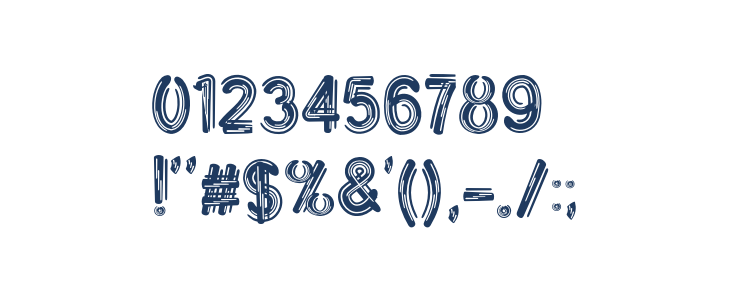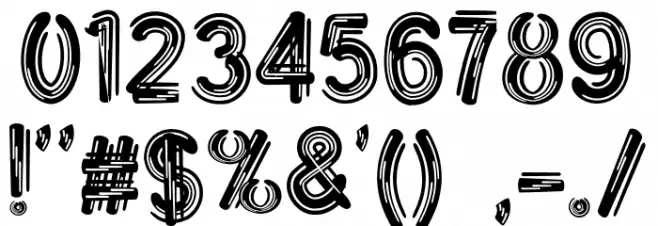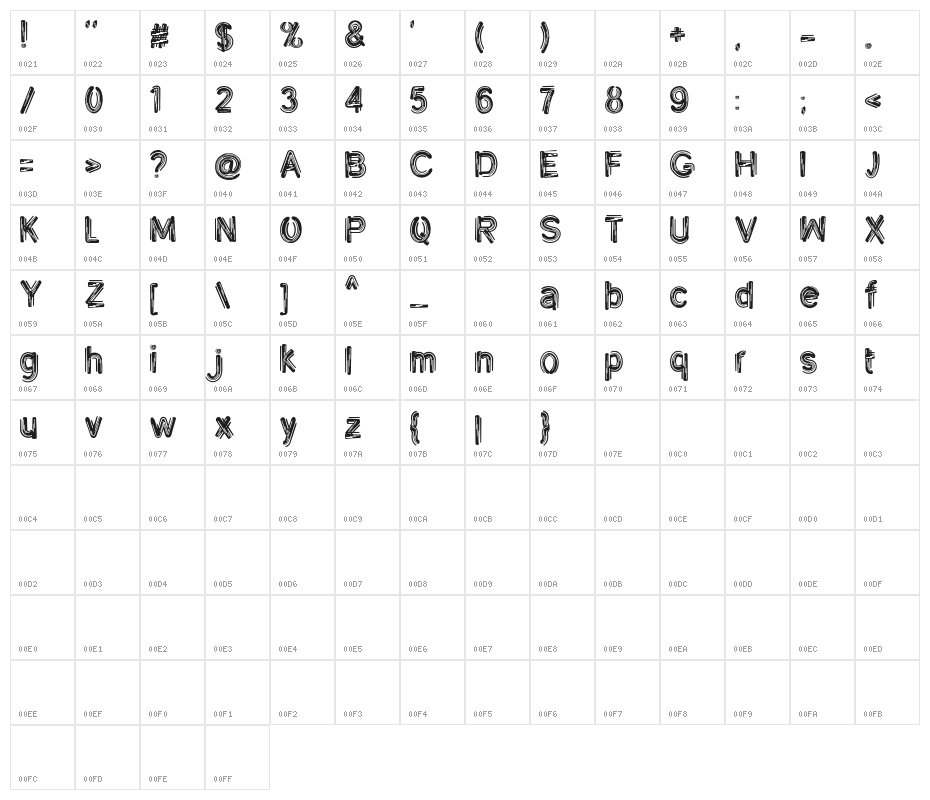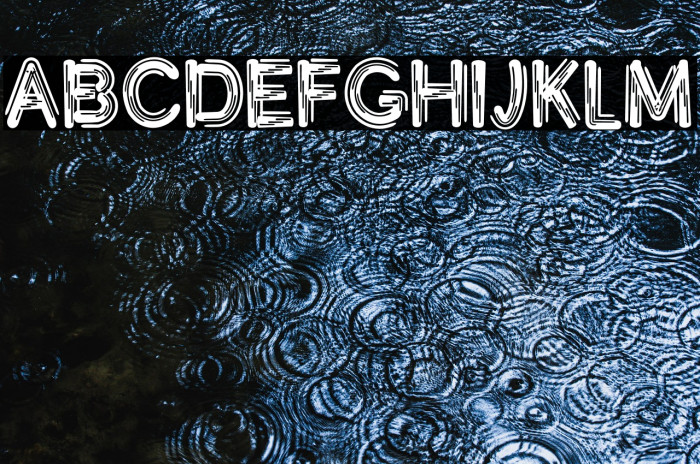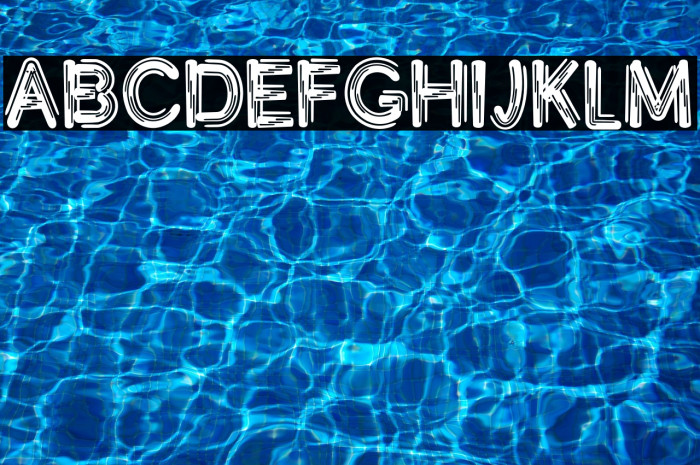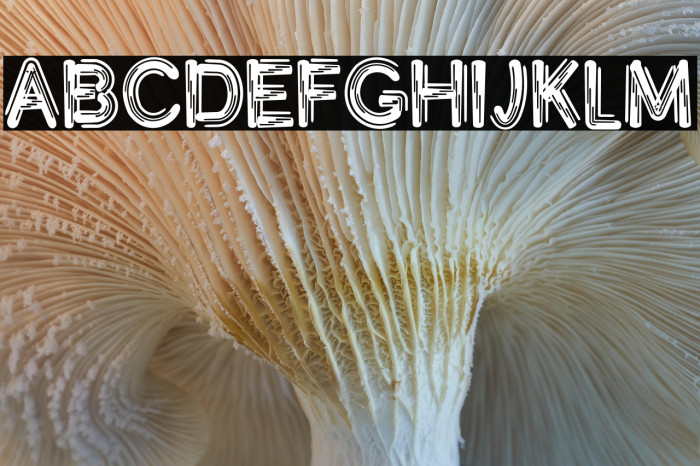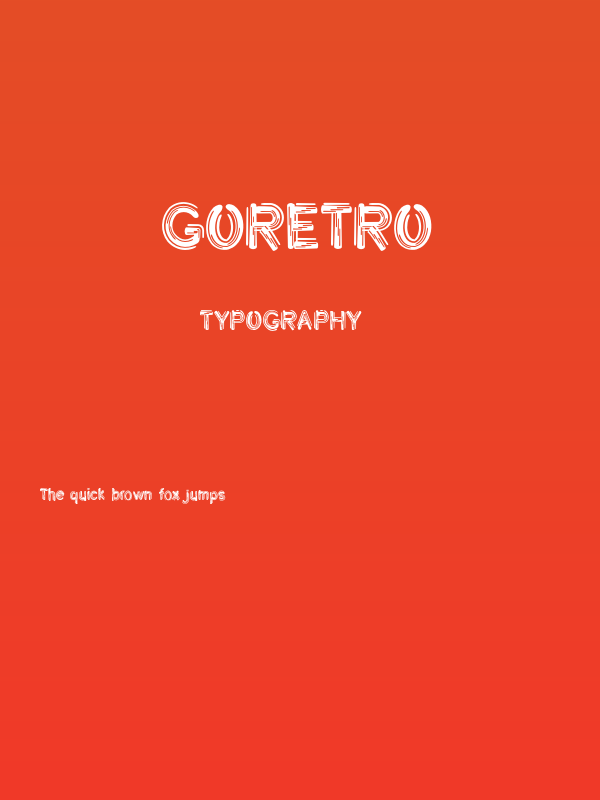
GoRetro Font
GoRetro Description
This font features a bold, retro-inspired design with a playful and dynamic appearance. Each character is outlined with multiple layers, creating a sense of depth and movement. The strokes are thick and rounded, giving it a friendly and approachable feel. The font's unique style is reminiscent of vintage signage and posters, making it ideal for projects that require a nostalgic touch. The uppercase and lowercase letters maintain a consistent style, while the numerals and special characters complement the overall aesthetic. This font is perfect for creating eye-catching headlines, logos, and branding materials that stand out with a distinct retro flair.
A bold, retro-inspired font with layered outlines and a playful, dynamic style from Uncategorized fonts.
- Font: GoRetro
- Proposed Projects: Ideal for vintage-themed posters, retro branding, eye-catching headlines, and playful logos.
- Overall Style: Retro, Playful
- Use Case: Headlines, Logos, Branding